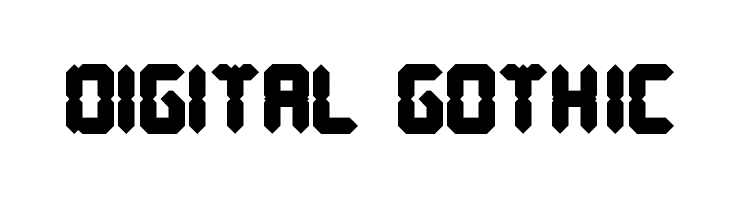
A bold, angular font with a digital and gothic style.
A cursive, handwritten font with elegant, flowing strokes.
A bold, distressed font with a vintage, stamped appearance.
A bold, decorative font with sharp, angular edges and a vintage flair.
A lively and elegant script font with a modern twist.
A bold, playful font with a three-dimensional outline and whimsical serifs.
A bold, high-contrast font with a dramatic and elegant style.
A playful, casual handwritten font with fluid strokes and a friendly vibe.
A bold, brush-style font with dynamic, hand-painted strokes.